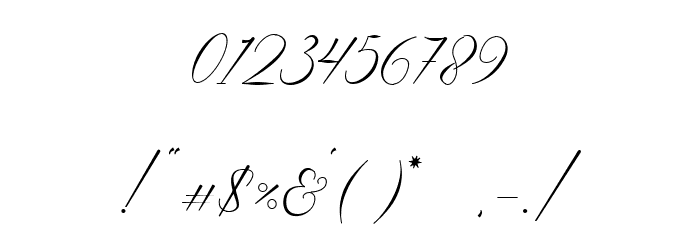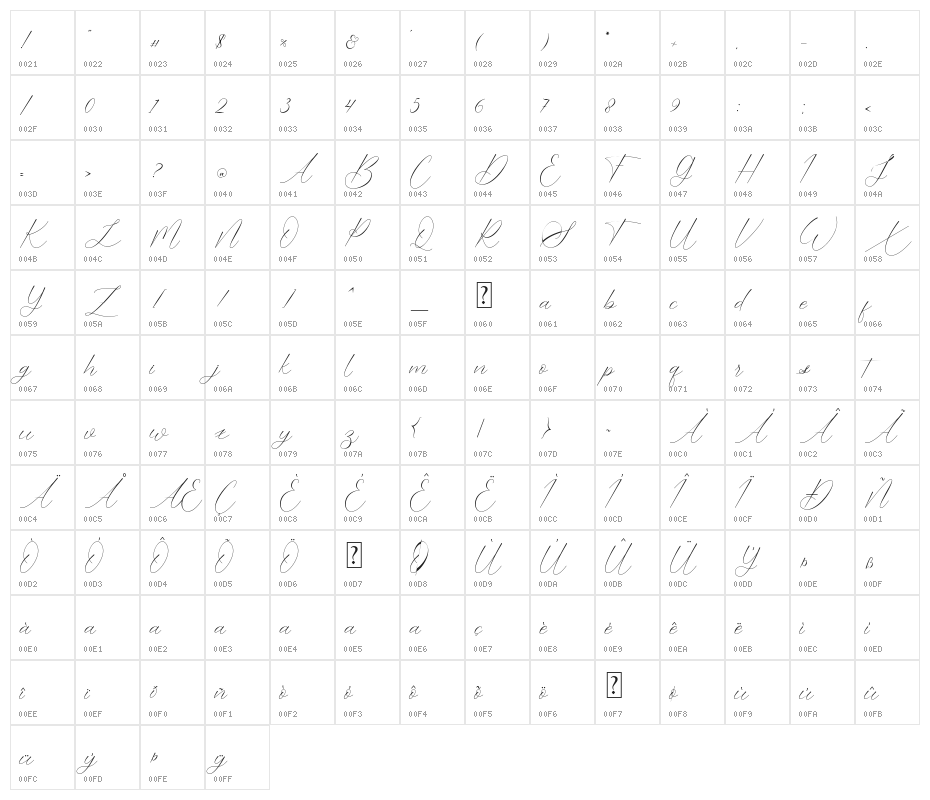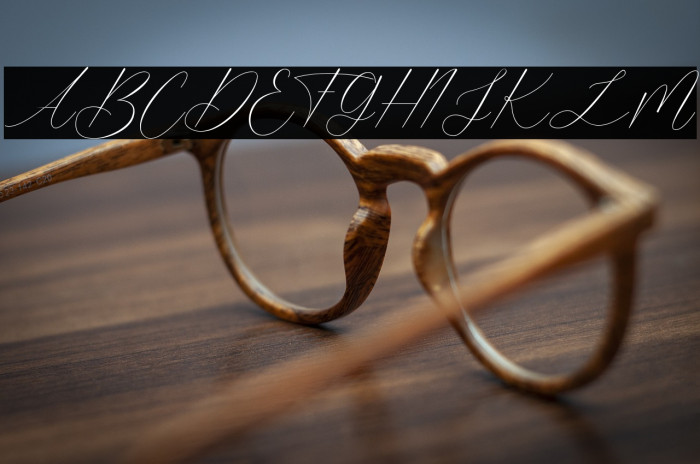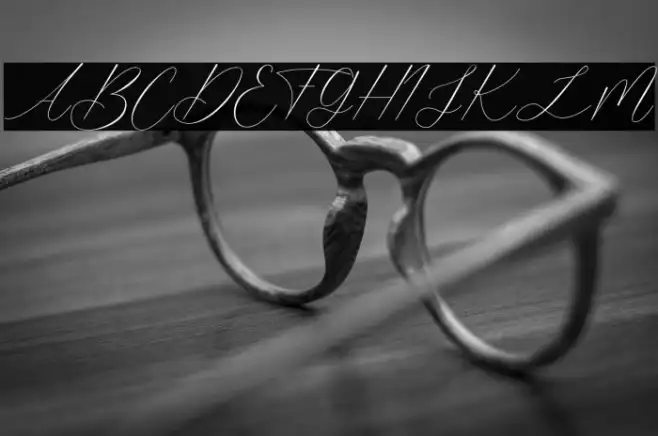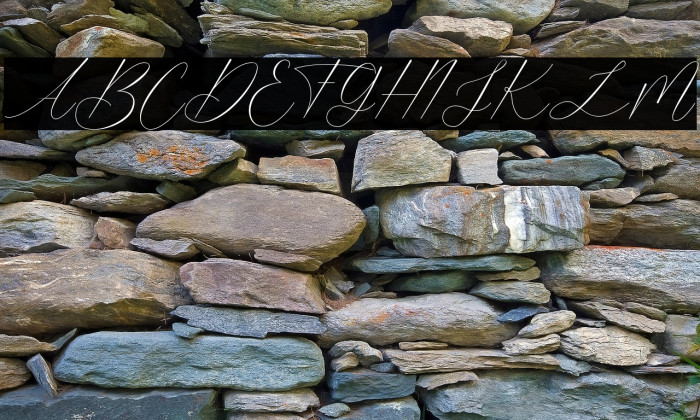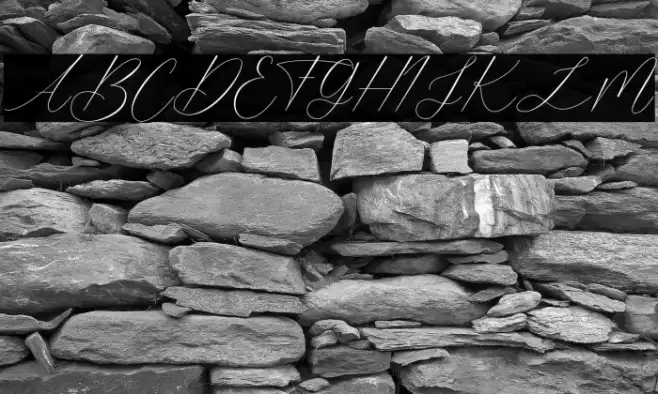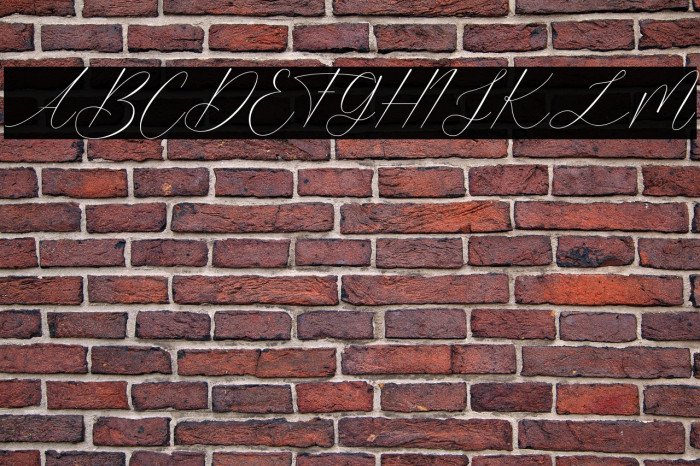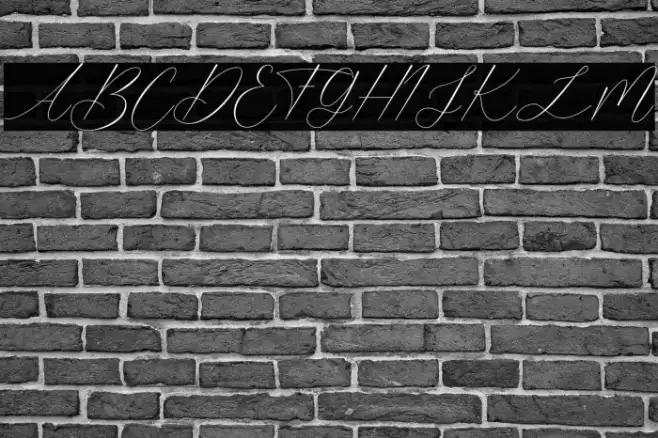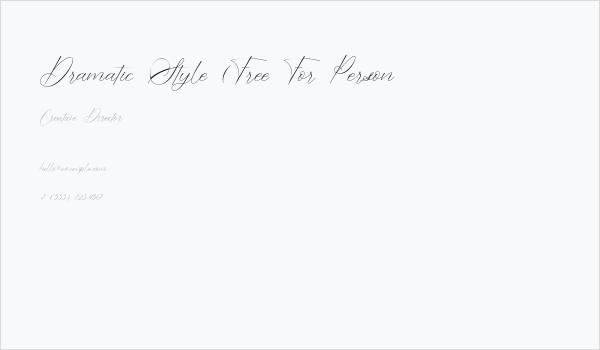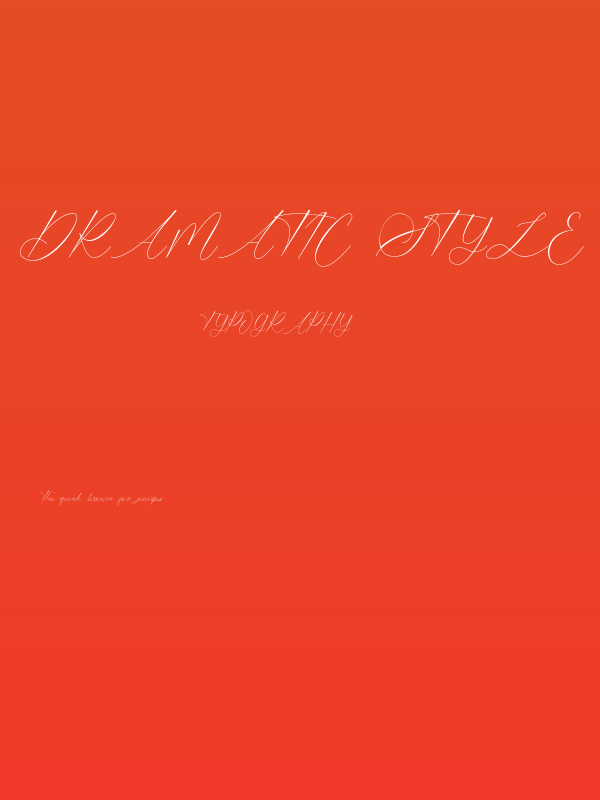
Dramatic Style (Free For Person Font
Dramatic Style (Free For Person Description
This font features an elegant and flowing script style, characterized by its dramatic and sweeping curves. The uppercase letters are particularly ornate, with extended flourishes that give a sense of movement and grace. The lowercase letters maintain a consistent style, with smooth connections and a slightly more restrained flourish. The numerals are designed to match the overall aesthetic, with a delicate and sophisticated appearance. Special characters are included, maintaining the same elegant style, making this font versatile for various uses. The thin strokes and high contrast between thick and thin lines add to its refined and luxurious feel.
Use CaseHeadlines, Logos, Invitations
Proposed ProjectsIdeal for wedding invitations, luxury branding, elegant stationery, and decorative headlines.